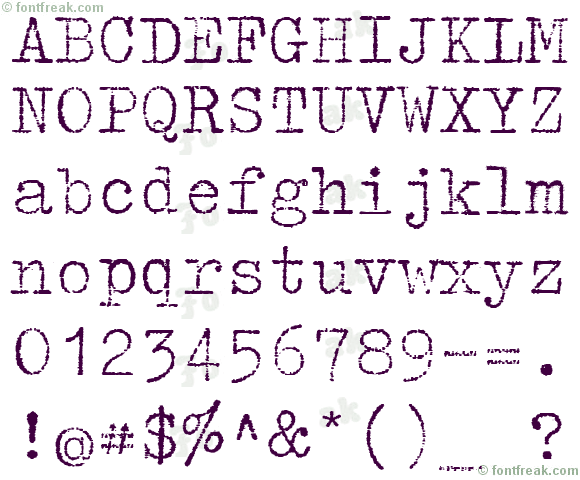
Tippa
Tippa is a captivating display font designed by Peter Wiegel, characterized by its unique blend of vintage charm and modern appeal. This typeface falls under the category of decorative fonts, showcasing a playful, hand-drawn aesthetic that evokes a sense of nostalgia. The font features varied stroke weights that give it an organic feel, with noticeable contrast between thicker and thinner lines. Its slightly irregular spacing adds to its quirky character, making it stand out in various design contexts.
The Tippa font is particularly versatile, making it ideal for a range of creative applications. It shines in projects like wedding invitations, where its whimsical style can add a personal touch. Additionally, it is perfect for movie posters that aim to capture attention through bold visuals. Restaurant menus can also benefit from Tippa's inviting appearance, drawing customers in with its friendly vibe. Furthermore, it works well in branding for small businesses looking to convey a creative or artisanal image, making it a go-to choice for graphic designers and content creators alike.
What truly sets the Tippa font apart is its ability to blend fun with functionality. Its decorative elements and hand-drawn style create an engaging visual experience, making it an excellent choice for both digital and print media. For those interested in enhancing their design repertoire, Tippa font free download offers a unique opportunity to explore this delightful typeface.